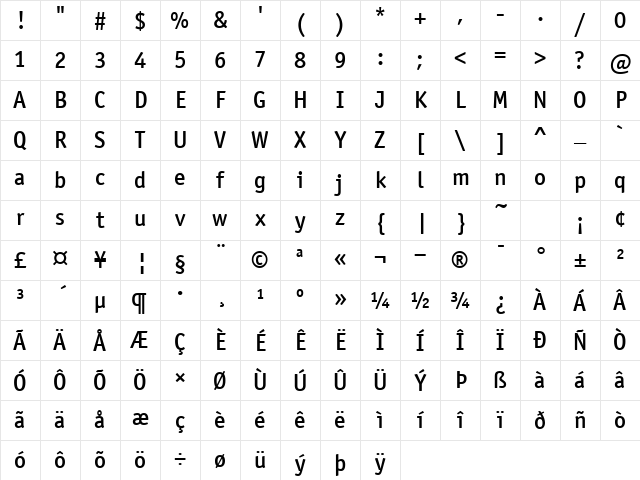
OfficinaSanITCTT Medium
Foundry: International Typeface Corporation
Designer: Erik Spiekermann, Ole Schaefer
Design Context for OfficinaSanITCTT
OfficinaSanITCTT is a composed and adaptable typeface that performs quietly and consistently across a wide range of design contexts.